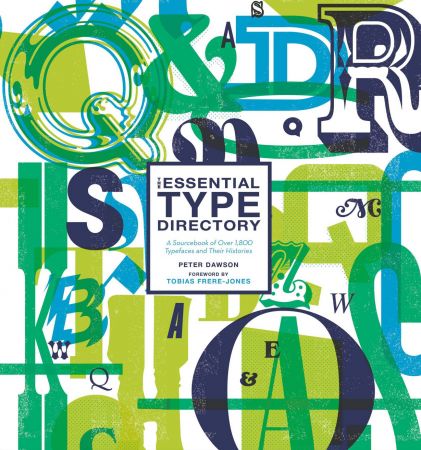
The most comprehensive, practical, and beautiful directory of type, organized by type category-Serif, San Serif, Display, and Scrip-and covering all styles throughout history.
The Essential Type Directory offers 1,800 examples of the best in type design, spanning almost 600 years of design history. From classics such as Garamond, Baskerville, Futura, and Helvetica, to more idiosyncratic recent creations such as Gotham and Filosofia, The Essential Type Directory features illuminating profiles of the most important and influential typefaces ever created. Organized by type category-Serif, Sans Serif, Display, and Script-each typeface is presented in uppercase and lowercase alphabetical letters, along with numbers, key punctuation marks, and symbols. This comprehensive guide also features profiles and interviews with leading designers and type foundries, as well as inspirational examples of graphic designs using specific typefaces.